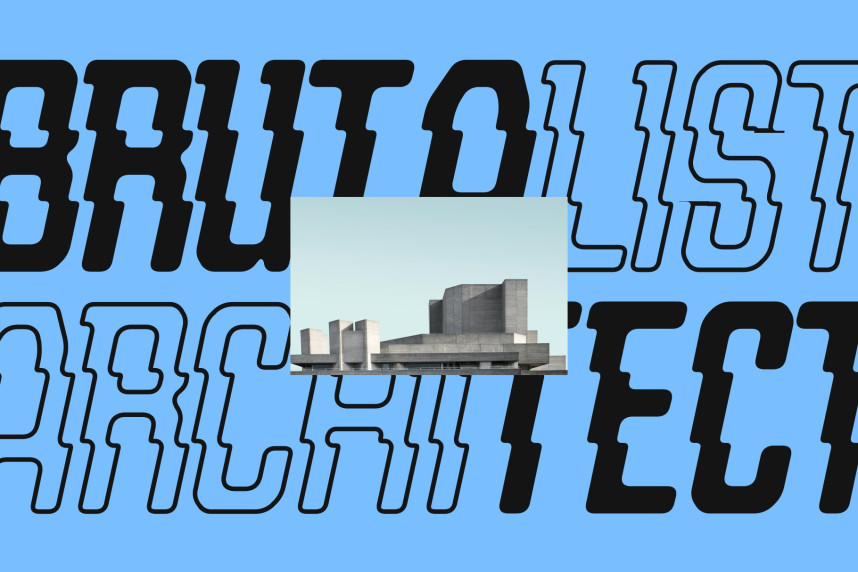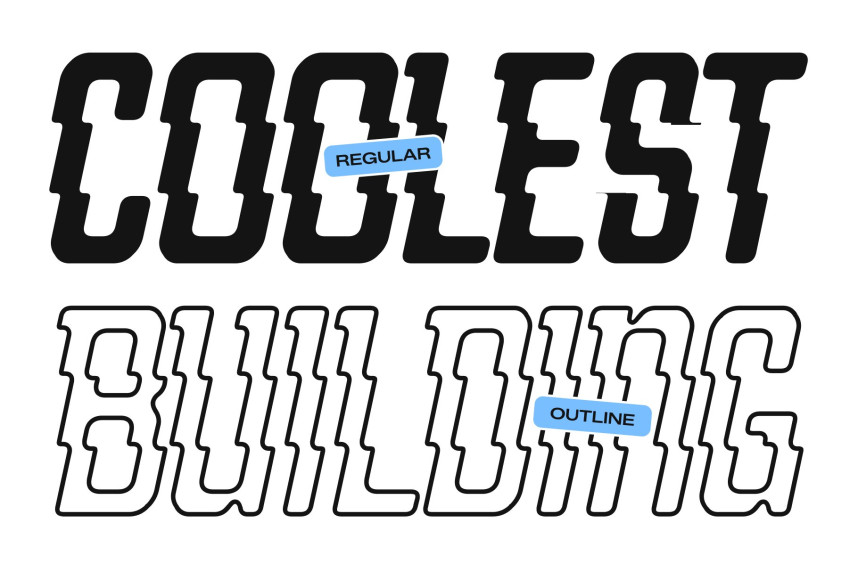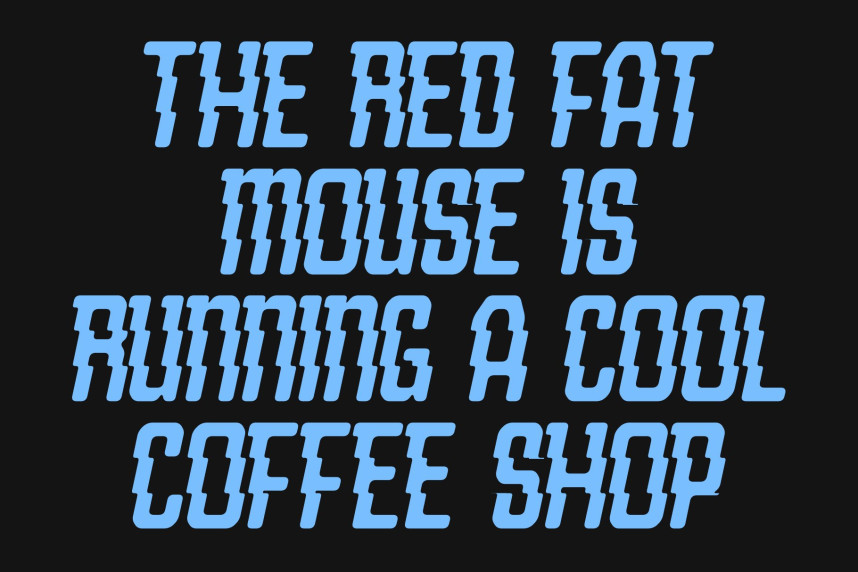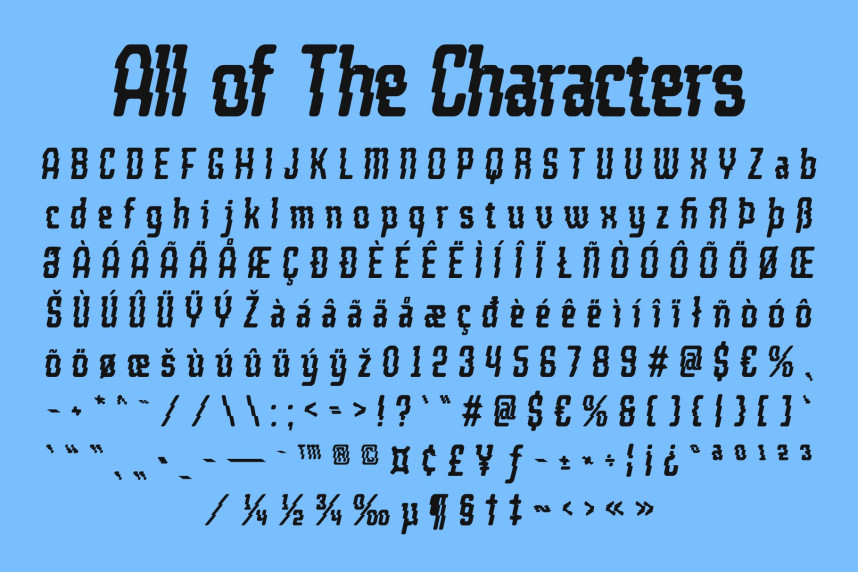
CS Capito Rippled Font
CS Capito Rippled Font – Modern Display Sans Serif Font: Where Athletic Energy Meets Fluid Wave Motion
Sporty Style with Dynamic Momentum
This is a modern display sans serif typeface designed with a sporty and energetic character. Its sharp angles, dynamic shapes, and bold construction create a powerful sense of movement and speed, making it ideal for designs that demand action and excitement. Every letterform is crafted to communicate strength, competitiveness, and forward momentum.